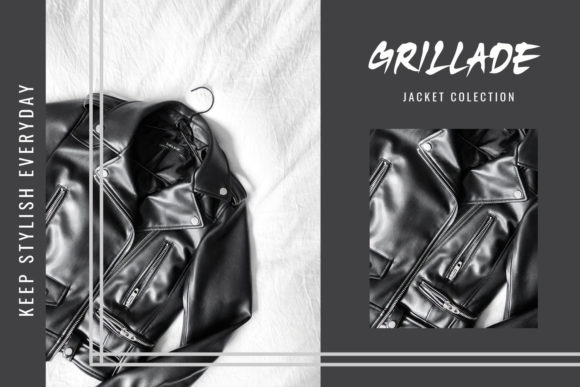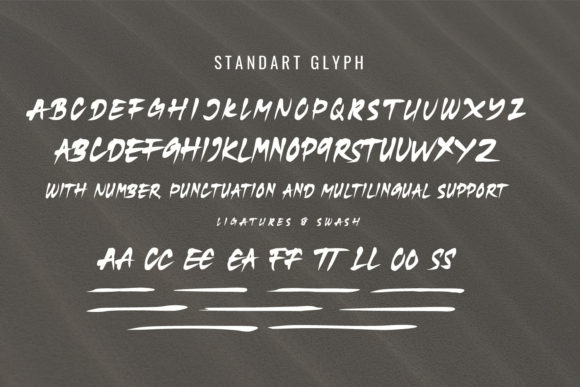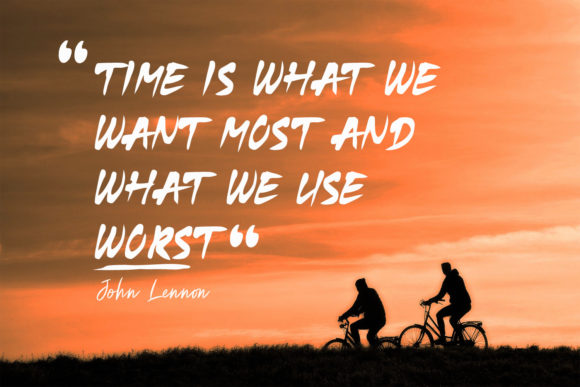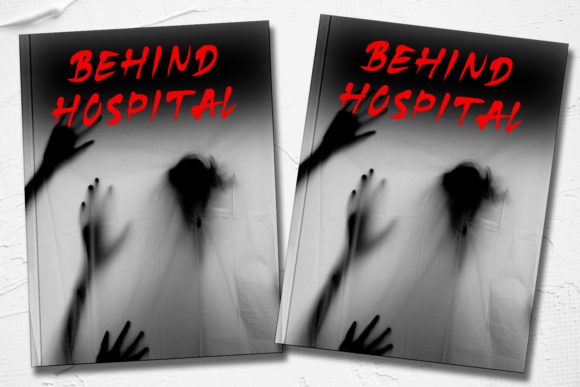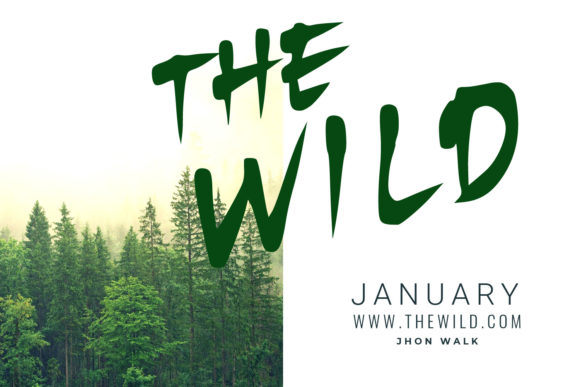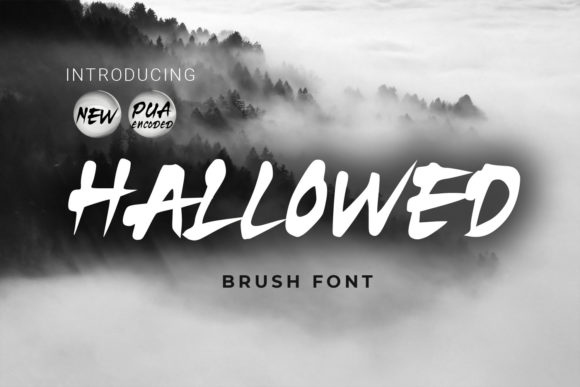
Introducing Hairtons Font: The Cool and Brushed Display Font for Designers and Crafters
Are you a designer or crafter looking for a unique and stylish font to elevate your designs? Look no further than Hairtons Font, a cool and brushed display font that’s perfect for a variety of creative projects. In this article, we’ll take a closer look at Hairtons Font, its features, and how you can use it to take your designs to the next level.
What is Hairtons Font?
Hairtons Font is a modern, brushed display font that’s designed to add a touch of coolness to your designs. Its unique, hand-brushed texture gives it a distinctive look that’s perfect for designs that require a bit of edge. Whether you’re working on a logo, advertisement, or clothing design, Hairtons Font is sure to make your project stand out.
Key Features of Hairtons Font
So, what makes Hairtons Font so special? Here are some of its key features:
- Cool and Brushed Texture: Hairtons Font features a unique, hand-brushed texture that gives it a cool, laid-back vibe.
- Display Font: Hairtons Font is designed specifically for display purposes, making it perfect for headlines, titles, and other large-format text.
- Versatile: Hairtons Font can be used for a wide range of designs, including t-shirts, sportswear, logos, advertisements, clothing, and more.
- Easy to Read: Despite its brushed texture, Hairtons Font is surprisingly easy to read, making it perfect for designs that require a bit of flair.
Use Cases for Hairtons Font
So, how can you use Hairtons Font in your designs? Here are some ideas to get you started:
- T-Shirt Designs: Hairtons Font is perfect for t-shirt designs that require a bit of attitude. Try pairing it with a bold graphic or image for a design that’s sure to turn heads.
- Sportswear: Hairtons Font is also great for sportswear designs, such as jerseys, hoodies, and hats.
- Logos: If you’re looking for a font to use in your logo design, Hairtons Font is a great choice. Its unique texture and cool vibe make it perfect for brands that want to stand out.
- Advertisements: Hairtons Font can also be used in advertisements, such as billboards, flyers, and brochures.
- Clothing and Accessories: Finally, Hairtons Font can be used on clothing and accessories, such as tote bags, phone cases, and more.
Tips for Using Hairtons Font
Here are some tips for getting the most out of Hairtons Font:
- Use it Sparingly: Because Hairtons Font is a display font, it’s best to use it sparingly. Try using it for headlines or titles, and a more straightforward font for body text.
- Experiment with Colors: Hairtons Font looks great in a variety of colors, so don’t be afraid to experiment. Try pairing it with bold, bright colors for a design that’s sure to pop.
- Pair it with Other Fonts: Hairtons Font can be paired with other fonts to create a unique and interesting design. Try pairing it with a sans-serif font for a bold, modern look.
In conclusion, Hairtons Font is a cool and brushed display font that’s perfect for designers and crafters who want to add a bit of edge to their designs. Its unique texture and versatile design make it perfect for a wide range of projects, from t-shirts and sportswear to logos and advertisements. With these tips and ideas, you’ll be well on your way to creating amazing designs with Hairtons Font.